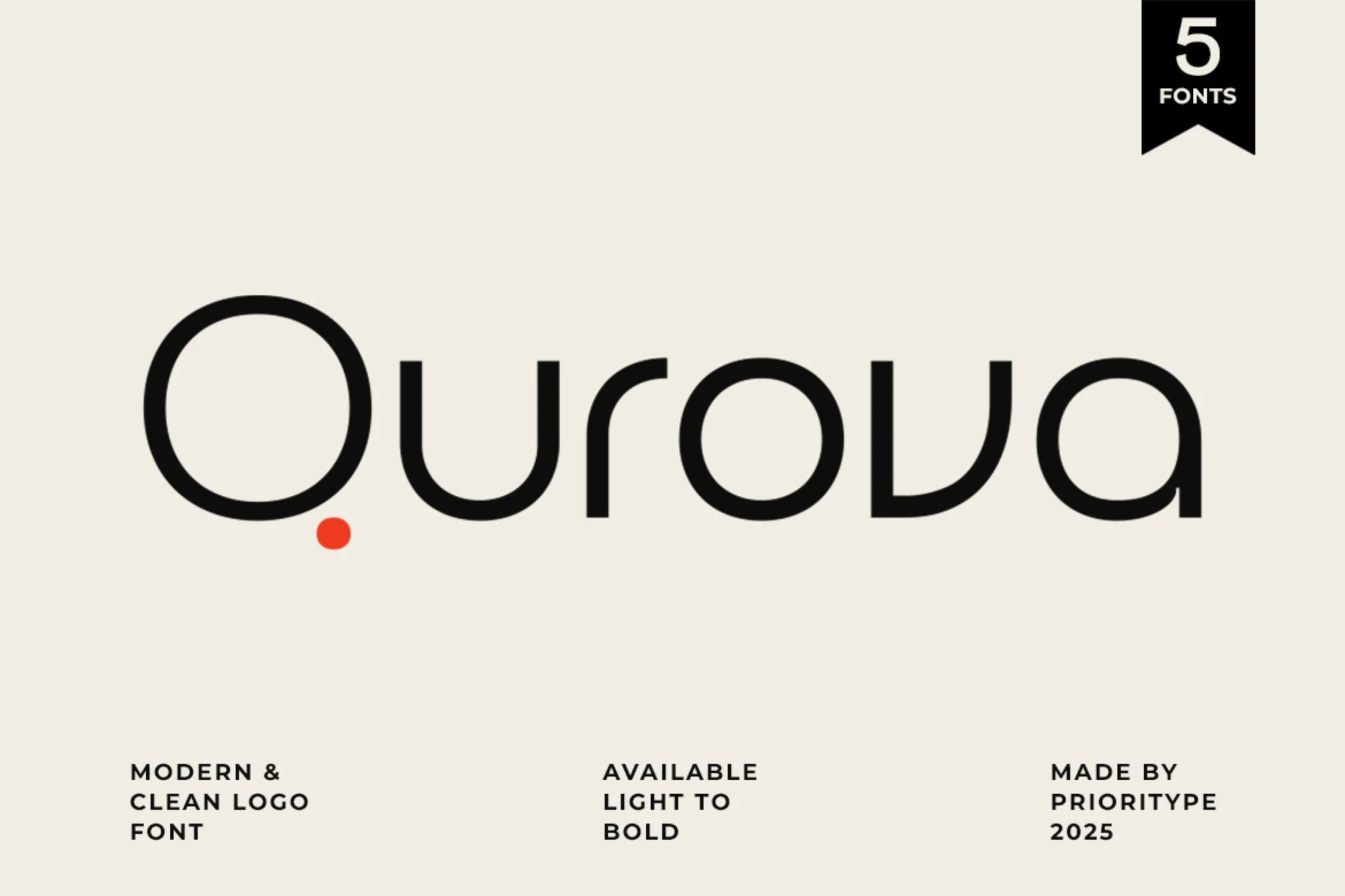
Qurova – Modern Elegant Logo Font by Prioritype Co
Qurova is a modern sans-serif typeface crafted for professional branding and corporate design. Featuring a full range of weights from Thin to Bold, it combines
Qurova by Vault Zxnova is a modern, versatile sans-serif display font designed for professional branding and corporate identities. Featuring a complete range of weights from Thin to Bold, Qurova is perfect for logos, sophisticated visual identities, and headline typography. Its clean lines and minimalist design bring timeless elegance and reliable readability to any digital or print project.
Crafted for multi-purpose use, Qurova includes uppercase and lowercase letters, numerals, punctuation, alternates, and extensive multilingual support. The font family supports dozens of languages—making it a powerful tool for brands working internationally.
Key Features
| Full Weight Range | Thin, Light, Regular, Medium, Bold — for ultimate design flexibility. |
| Uppercase & Lowercase | Well-crafted letterforms for recognizable branding and clean layout. |
| Numeral & Punctuation | Complete character set for all professional needs. |
| Multilingual Support | Supports more than 60 languages, ideal for global use. |
| Alternates | Includes stylistic options for unique logo work. |
| Designed by Prioritype Co | Modern, minimalist typeface for high-impact branding. |
Qurova by Vault Zxnova lets you create professional, elegant logos and cohesive branding from the very first letter.
clean lines with versatile functionality, making it ideal for logos, visual identities, and sophisticated branding needs.
Features: Uppercase, Lowercase, Numeral, Punctuation, Multilingual & Alternates.